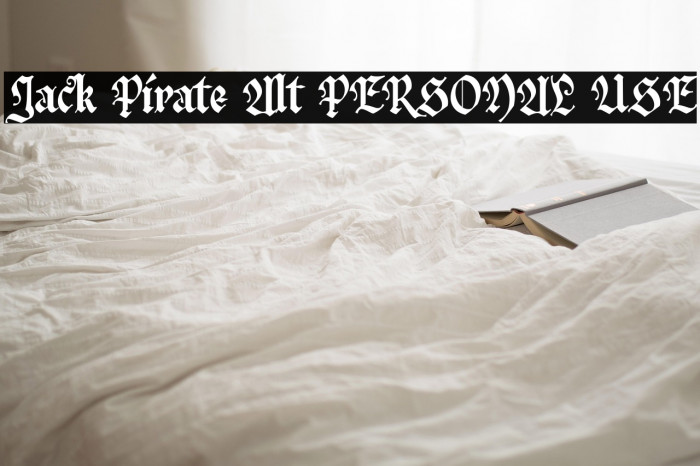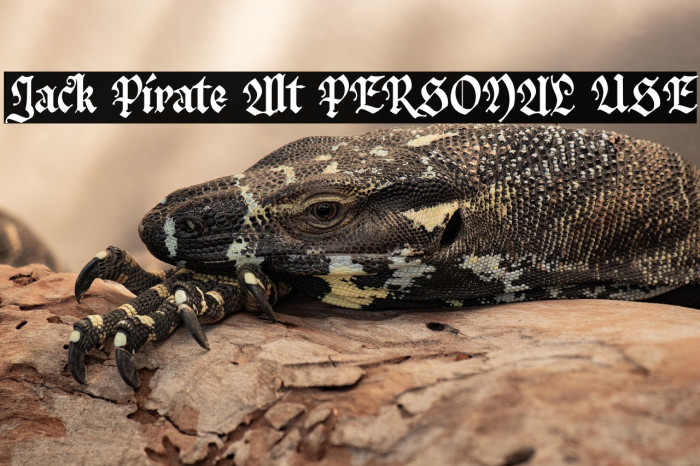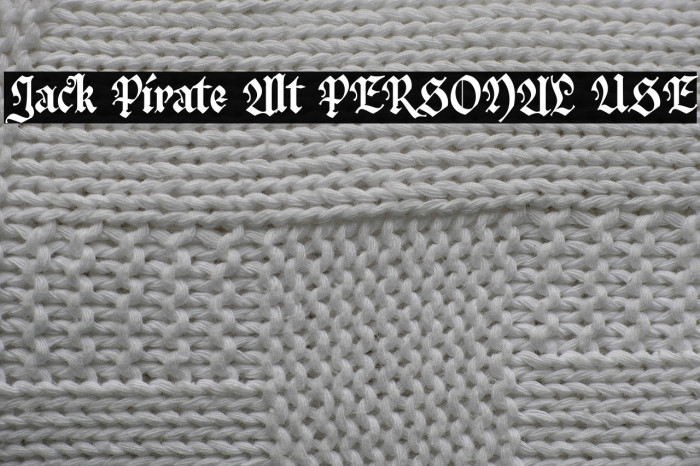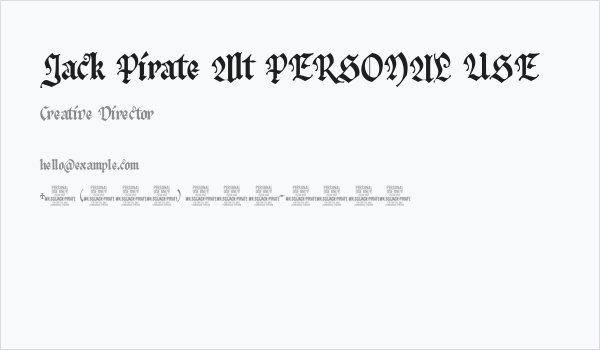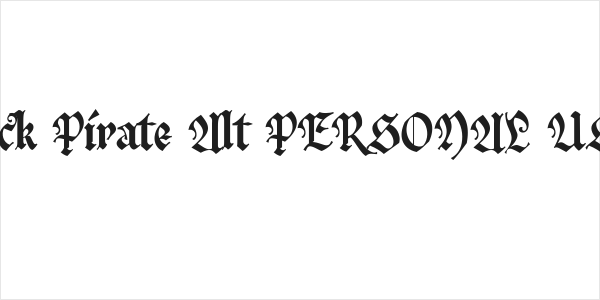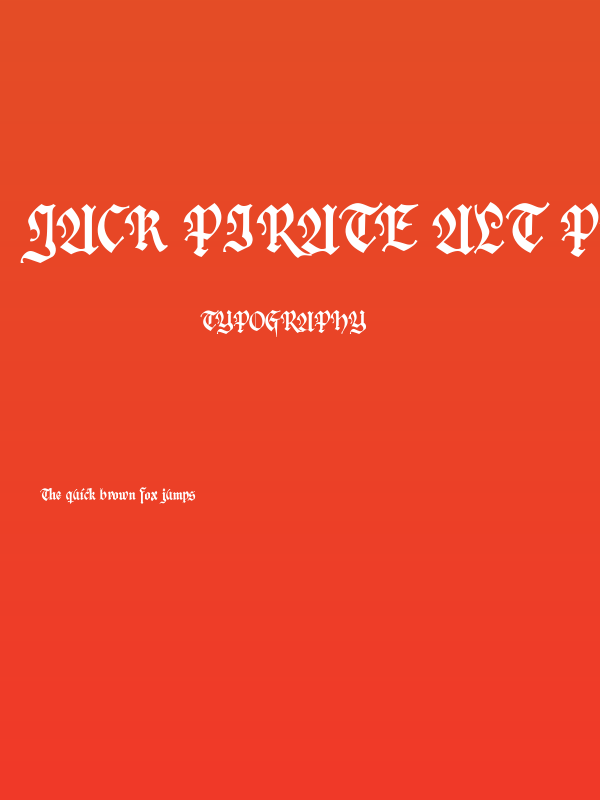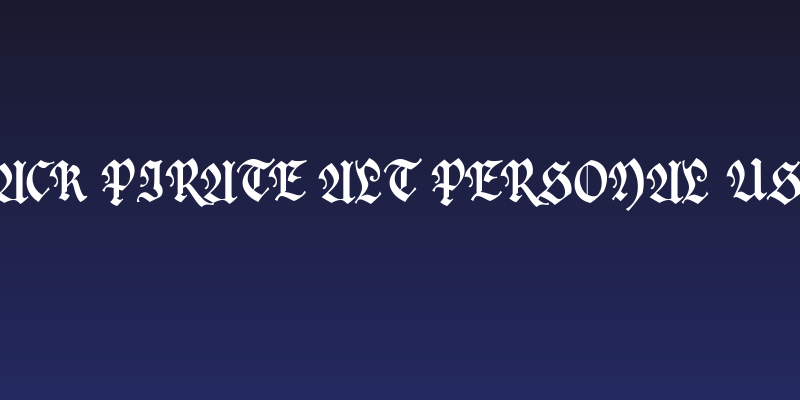
Jack Pirate Alt PERSONAL USE Font
Jack Pirate Alt PERSONAL USE Description
This font features a bold and dramatic style reminiscent of traditional Blackletter typefaces. The characters are ornate with sharp, angular lines and intricate detailing, evoking a sense of historical elegance and mystery. The uppercase letters are particularly elaborate, with unique flourishes that add to the font's decorative appeal. The lowercase letters maintain the same intricate style, ensuring consistency throughout the typeface. The numbers and special characters are equally stylized, making them suitable for thematic designs. This font is ideal for projects that require a touch of vintage or gothic flair.
| Overall Style | Vintage, Decorative |
| Proposed Projects | Ideal for historical-themed designs, gothic posters, book covers, and branding that requires a vintage or mysterious touch. |